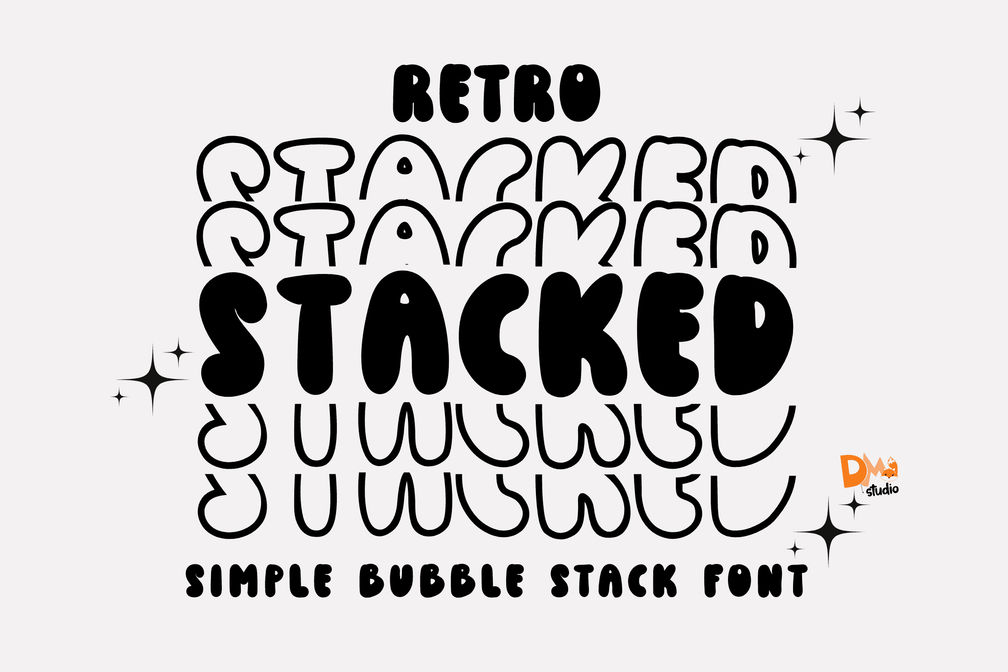
Retro Stacked Font
Introducing Retro Stacked Font – a nostalgic, bold, and stylish typeface that brings back the charm of vintage design with a modern twist. This font features a unique stacked effect that combines retro aesthetics with a layered look, making it ideal for anyone looking to add a retro vibe to their projects. Perfect for posters, album covers, apparel design, logos, and branding, Retro Stacked Font is all about creating a visually striking, memorable impression. Its groovy, stacked letters add depth and character, making it stand out in any design.
• Vintage-Inspired Stacked Design: Adds a retro feel with layered letters that give a sense of depth and style.
• Perfect for Retro-Themed Projects: Ideal for posters, music covers, apparel, branding, and more.
• Bold and Stylish Aesthetic: A statement-making font that captures attention and evokes nostalgia.